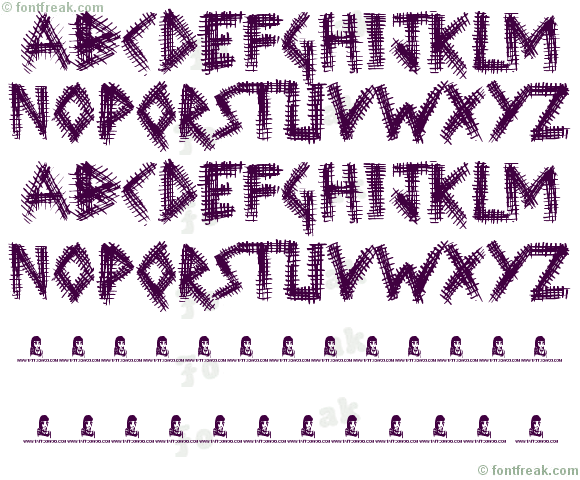
The Wrong Tracks font, created by Jonathan S. Harris, is a striking display typeface that embodies a unique, edgy aesthetic. This decorative font features an irregular, hand-drawn style that mimics the appearance of hastily scribbled lines, creating an authentic and spontaneous feel. The uneven stroke weight and erratic spacing contribute to its dynamic character, making it an eye-catching choice for various design projects.
This font is particularly well-suited for use cases where creativity and individuality are paramount. It works excellently for band posters, capturing the rebellious spirit of music events. Additionally, it can add a fun touch to children's book covers, where a playful and imaginative visual is essential. Wrong Tracks is also a great fit for fashion branding, especially for brands that embrace an unconventional or streetwear aesthetic. Small business owners looking to create a bold identity for their cafes or boutiques can effectively use this font in signage or promotional materials. Furthermore, it can enhance social media graphics, making content stand out in a crowded digital landscape.
Targeting graphic designers, content creators, and small business owners, Wrong Tracks provides a refreshing alternative to more traditional typefaces. Its unique style allows for creative expression while maintaining legibility.
What sets the Wrong Tracks font apart is its ability to convey a sense of spontaneity and artistic flair. This font stands out as a versatile choice for those aiming to make a memorable impression. With its free availability, the Wrong Tracks font free download invites designers and creatives alike to explore its potential in their projects, ensuring that every design reflects a unique voice.